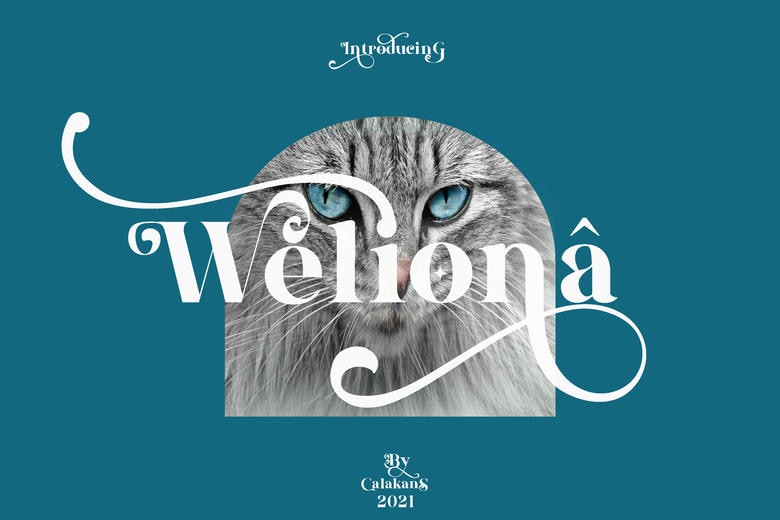
Weliona Font
The Weliona font with its graceful serif type, rich ornamentation, and flowing lines is certainly the best choice in the projects that need a personal, luxurious, and artistic touch. The examples of usage that you have given, e.g. luxury product logos, wedding invitations, greeting cards, and packaging design, are quite correct, because this font can create an exclusive impression and be aesthetically pleasing to the eye.
Weliona Serif Font